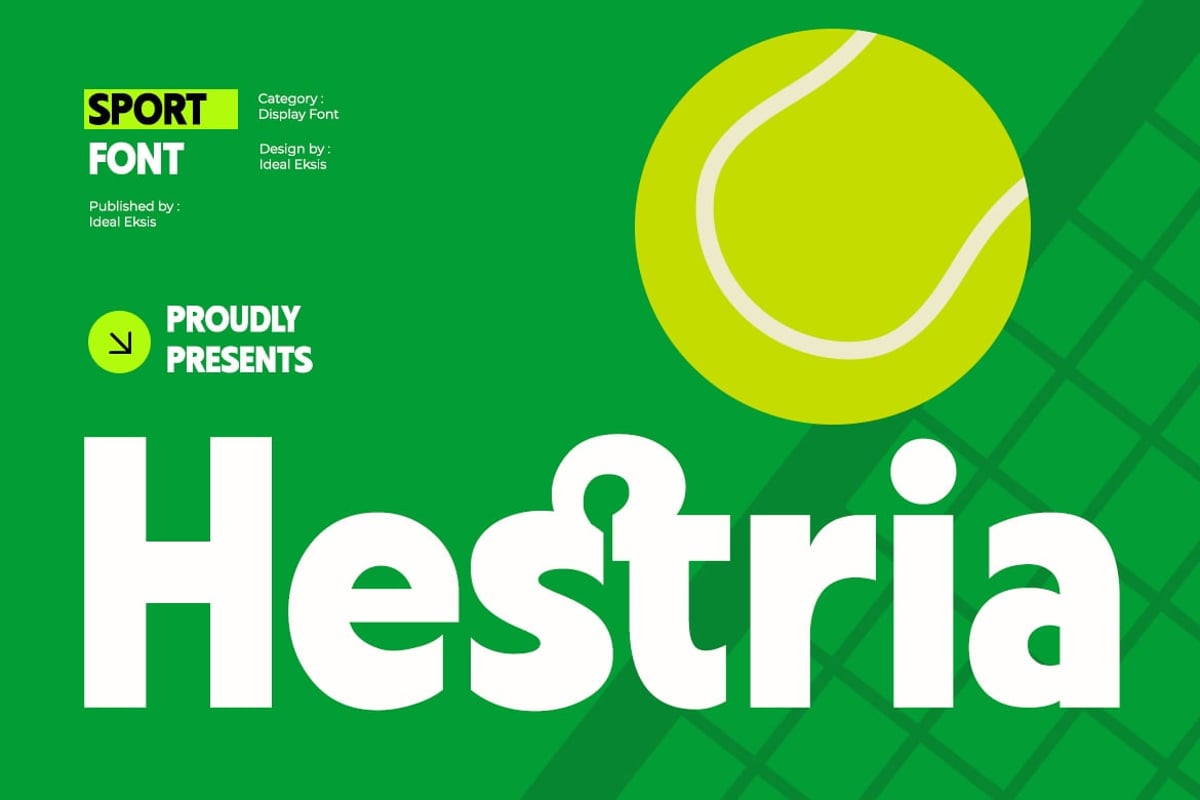
Hestria - Sports Font
Dominate your sports branding with Hestria's bold geometric power and futuristic edge. This modern display font combines clean geometric shapes with a contemporary vibe that commands attention. Its strong and stylish appearance delivers the professional impact your projects demand, whether you're crafting logos, posters, branding materials, headlines, or digital designs. In Package: OTF TTF WOFF WOFF2 Features: Uppercase Lowercase Numerals and Punctuation (OpenType Standard) Accents (Supports Mu...